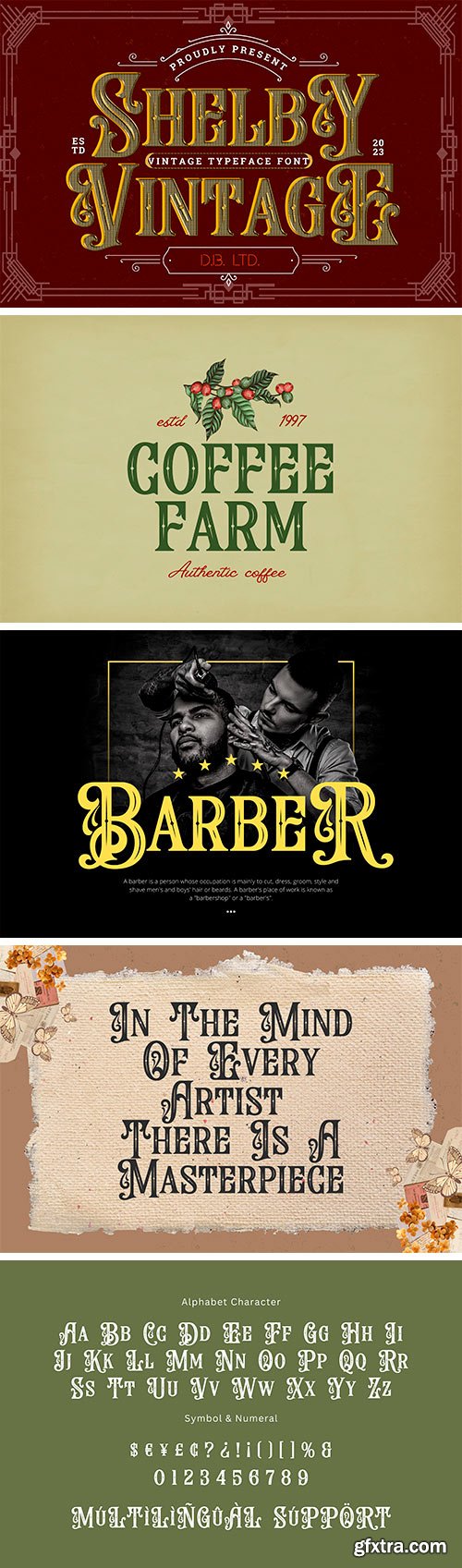
Shelby Vintage - Vintage Typeface Font it matches applies in some designs such as the logotype, brand, packaging, quotes, poster, t-shirt, invitation and more custom design. The features uppercase, lowercase, numeral, punctuation & symbol, multilingual support.